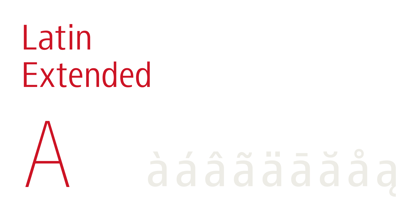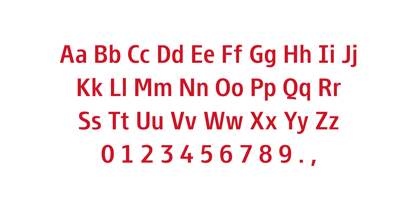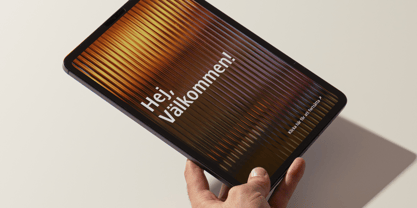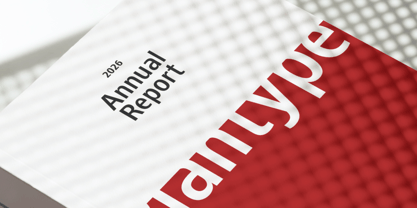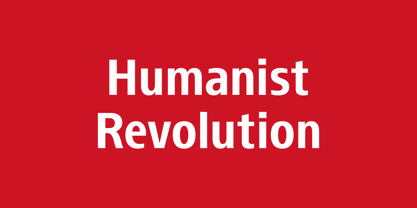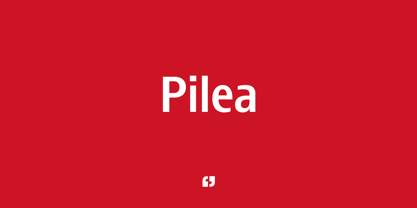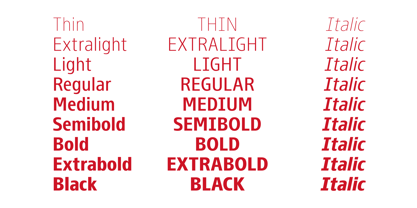
Pilea
by Plantype
The Pilea Font Family was designed by Emin İmamoğlu and published by Plantype. Pilea contains 18 styles and family package options. More about this family
Pilea, a versatile, contemporary typeface designed for efficiency and visual warmth. Classified as a Humanist Condensed Sans Serif, Pilea features a narrow body while maintaining excellent legibility in high-density text. Its signature characteristic is the elegant use of tapered terminals—subtle incisions visible on the exit strokes and open counterforms (such as the 'e' and 'C')—lending a sophisticated, almost calligraphic touch. Pilea balances this cleanliness with distinctive character elements, like the unique descender on the 'Q'. Engineered as a Variable Font with robust OpenType features and comprehensive Latin Extended language support, Pilea is an ideal solution for corporate identities, modern UI/UX applications, and high-impact signage where a clean, distinctive, and technologically flexible aesthetic is required.
Designers: Emin İmamoğlu
Foundry: Plantype